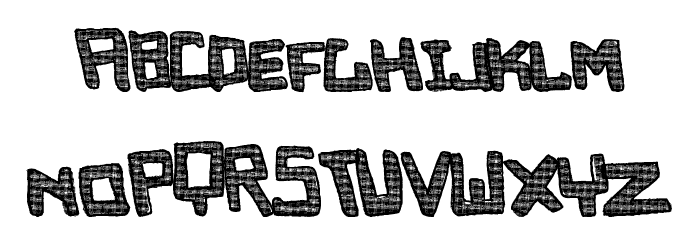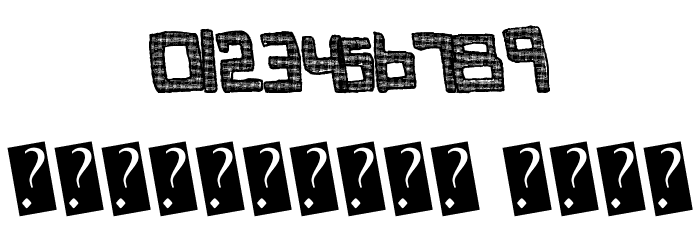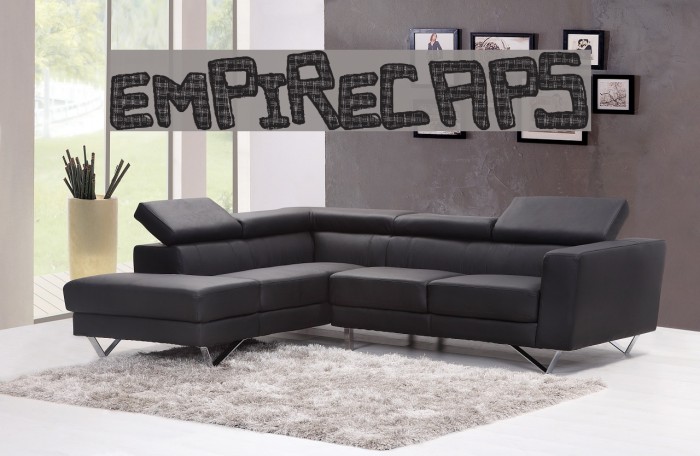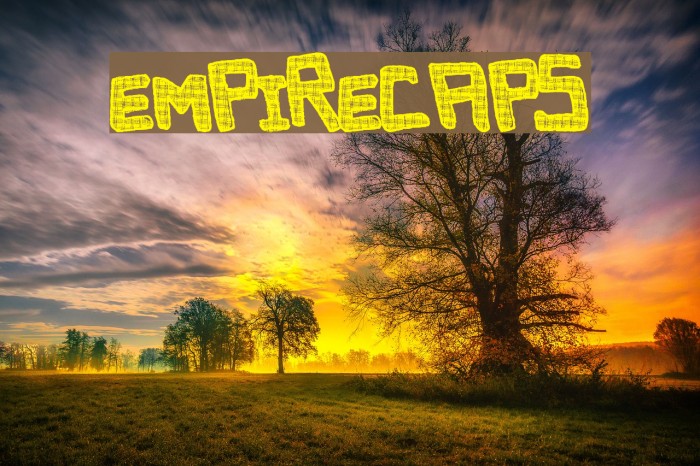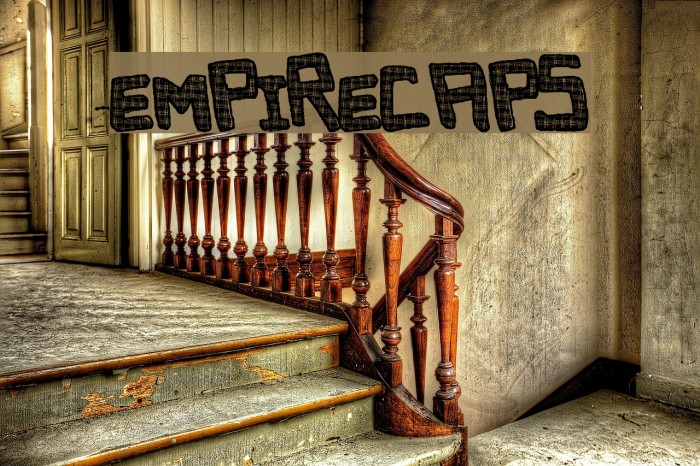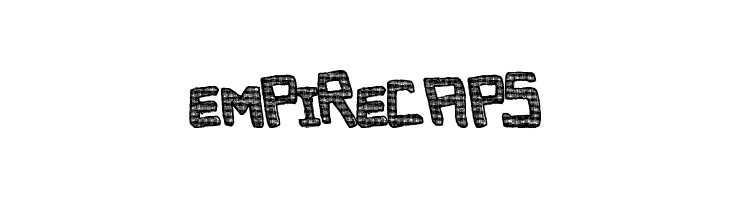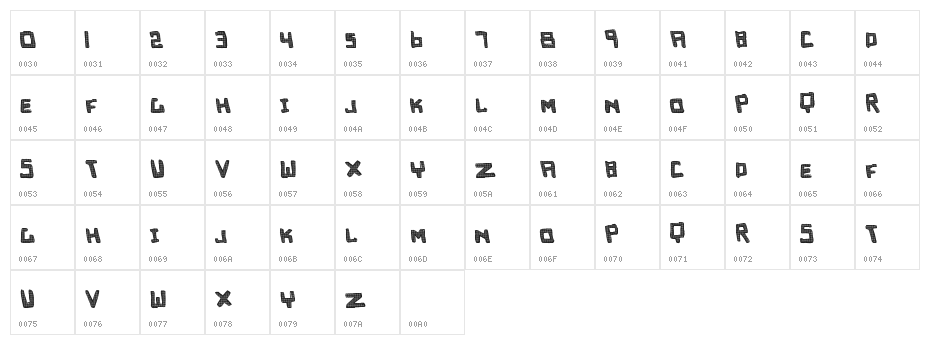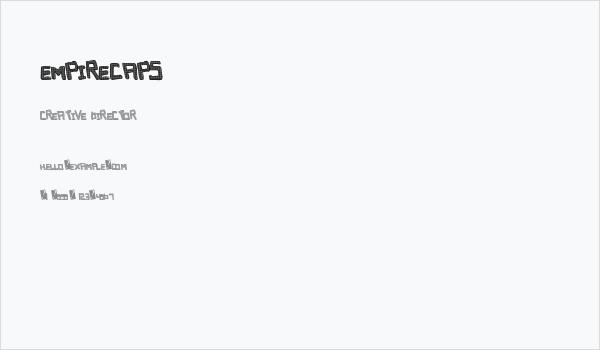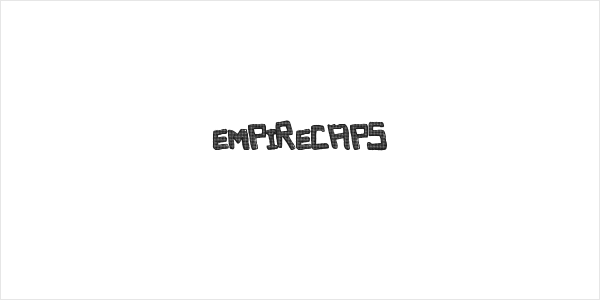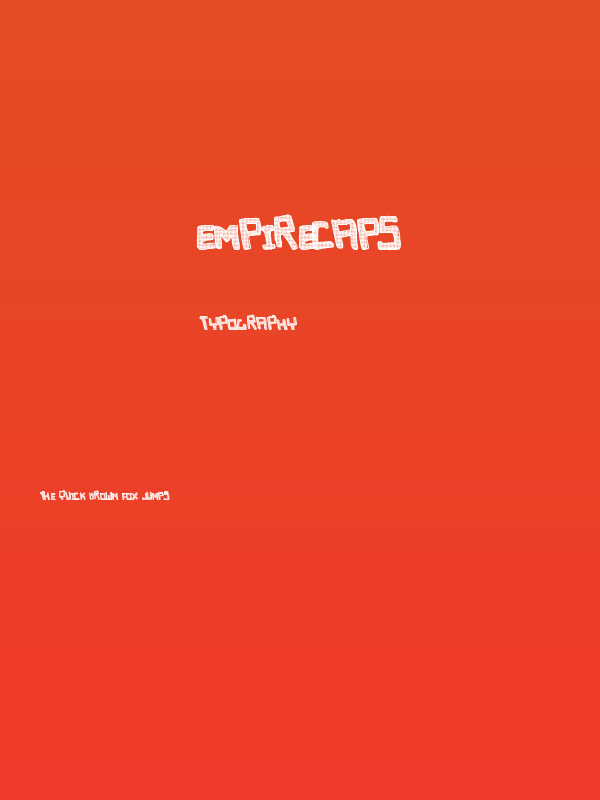
EmpireCaps Font
This font features a bold, textured design with a hand-drawn appearance. Each character is filled with a crosshatch pattern, giving it a unique, artistic look. The letters are uppercase and lowercase, with numbers and a selection of special characters. The style is playful yet structured, making it suitable for creative projects. The characters are slightly irregular, adding to the handcrafted feel. The font's distinct texture and boldness make it stand out, ideal for eye-catching designs.
A bold, textured font with a hand-drawn, crosshatched style.
- Proposed Projects: Ideal for posters, artistic projects, branding, and any design requiring a bold, creative touch.
- Overall Style: Artistic, Handcrafted